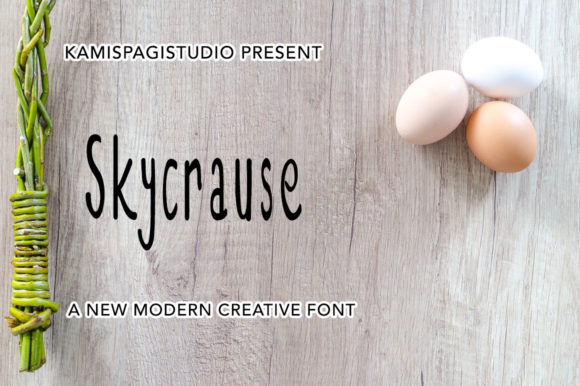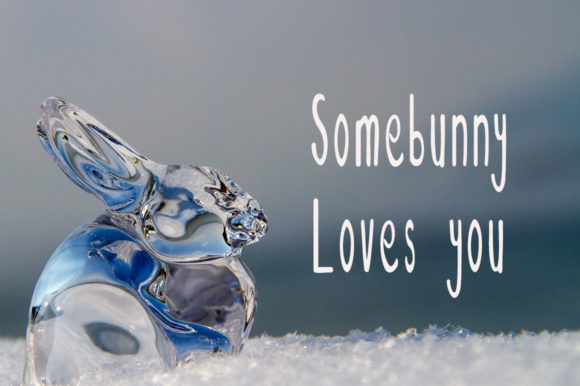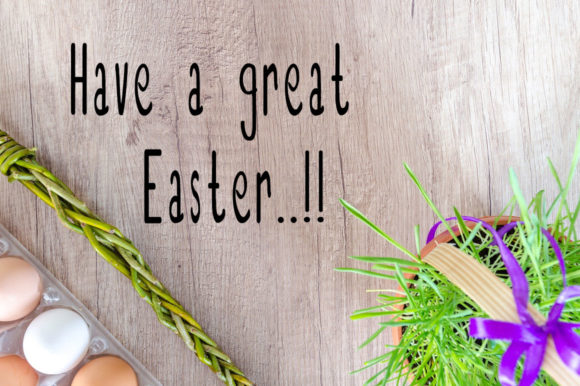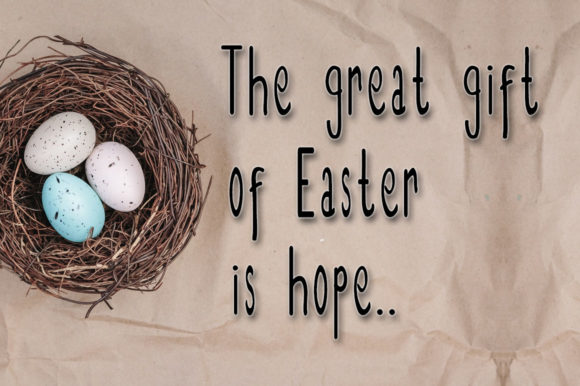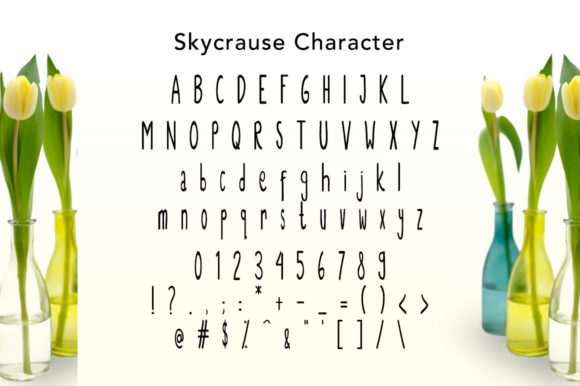
Skycrause Font
About Skycrause Font
Skycrause is a modern and casual handwritten font. Whether you’re looking for fonts for Instagram or calligraphy scripts for DIY projects, Skycrause will turn any creative idea into a true piece of art!